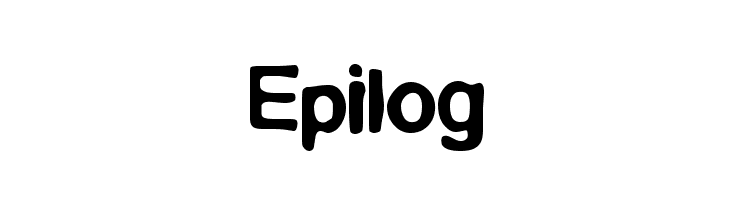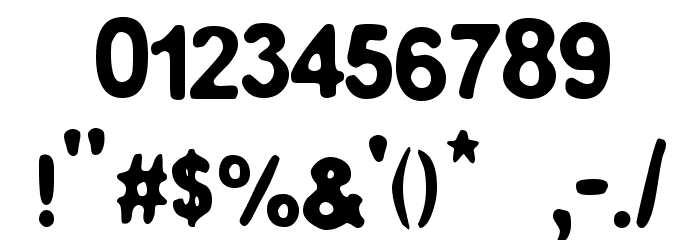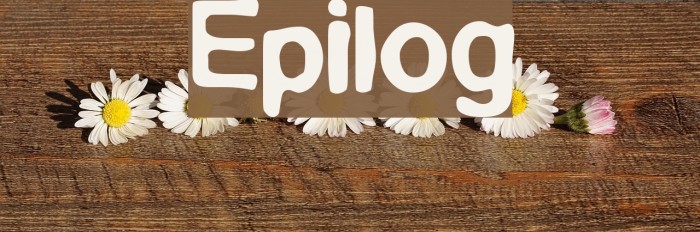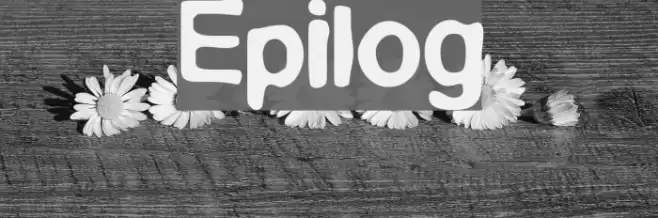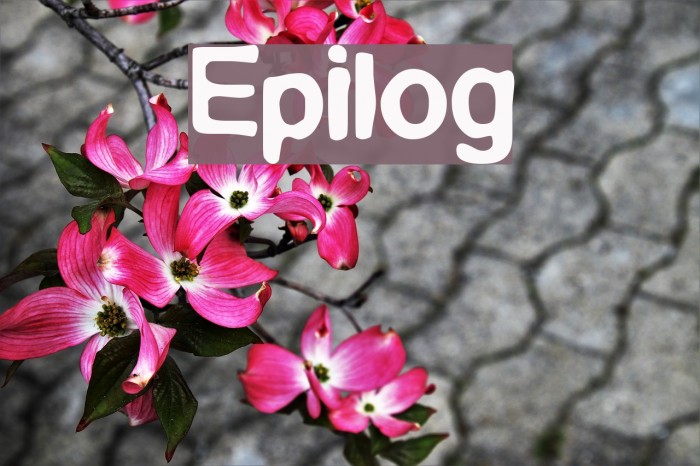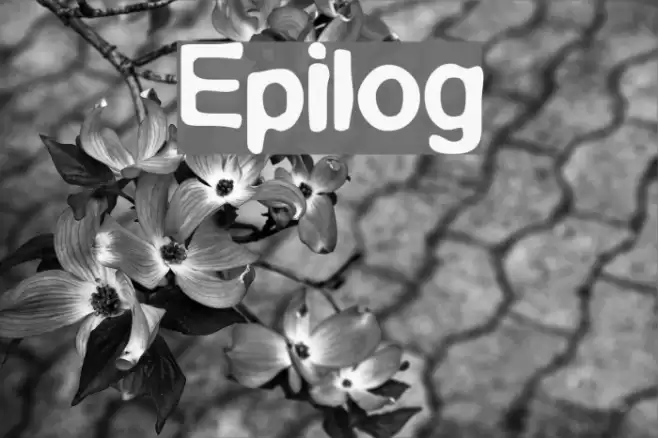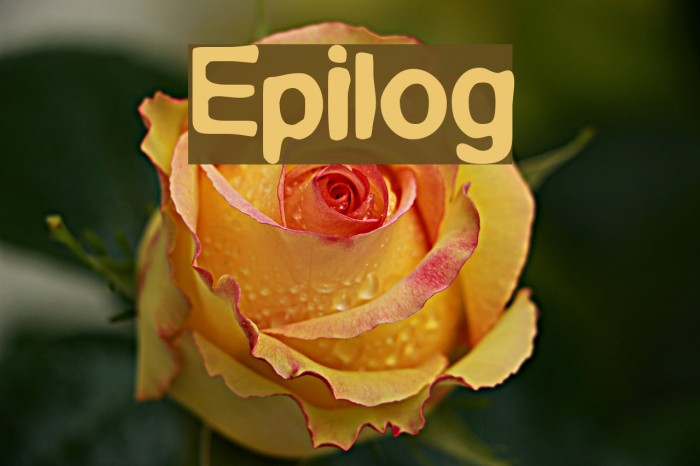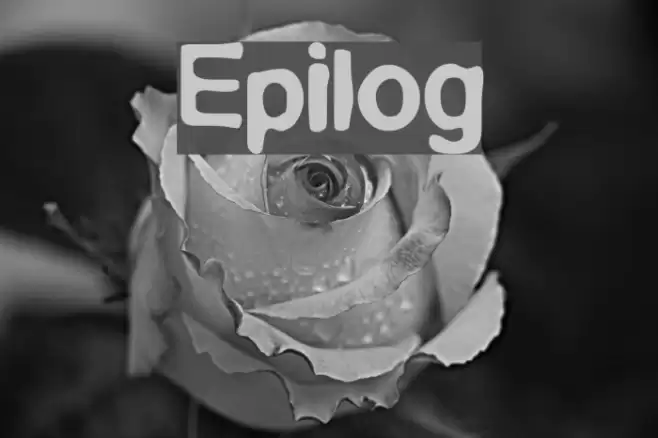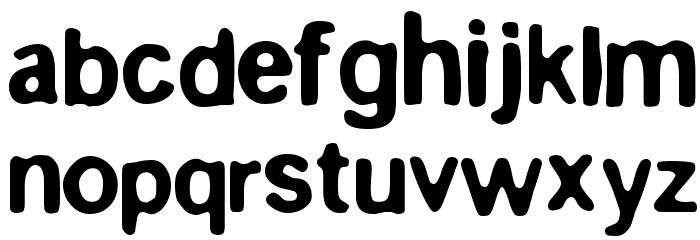
Epilog Font
Epilog Description
This font features a playful and bold design with rounded edges and a slightly irregular form, giving it a hand-drawn appearance. The characters are thick and substantial, providing a strong presence on the page. The uppercase and lowercase letters maintain a consistent style, with the lowercase being slightly more rounded. The numerals are clear and easy to read, matching the overall boldness of the alphabet. Special characters are included, maintaining the same playful and bold aesthetic. This font is ideal for projects that require a fun and approachable look.
| Overall Style | Playful |
| Proposed Projects | Ideal for children's books, playful branding, posters, and greeting cards. |